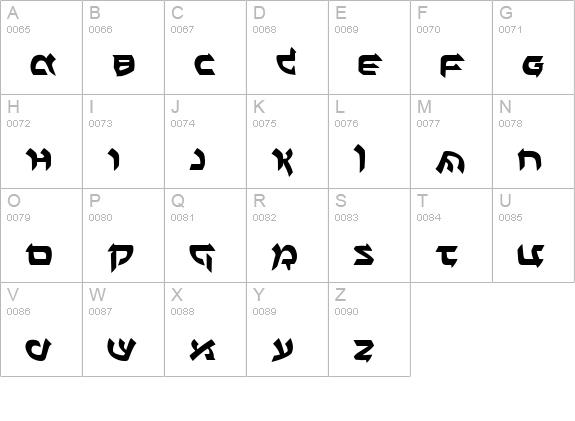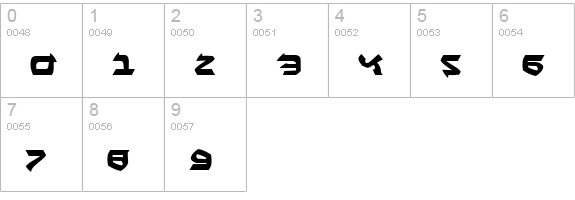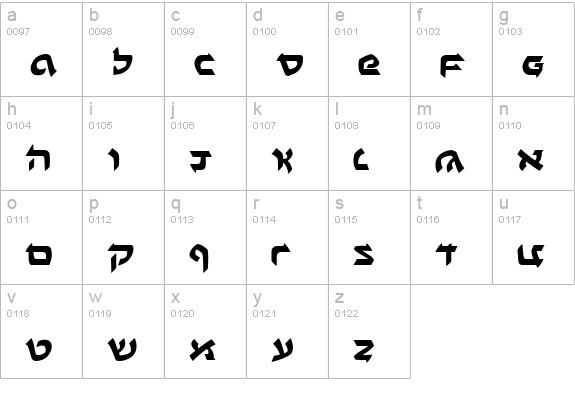
Ben-Zion Expanded is a distinctive, extended-width variant in the Ben typeface family \xE2\x80\x94 well suited to design and typography projects.
Ben-Zion Expanded font is a modern and stylish typeface that exudes elegance and sophistication. With its clean lines and bold presence, this font is perfect for making a statement in any design project. The expanded version adds an extra touch of uniqueness and flair, making it stand out from the crowd. What makes Ben-Zion Expanded font even more appealing is that it is completely free to download at FontsMarket.com. This means that you can easily access this stunning font and use it in your projects without any cost. Whether you are designing a website, creating a logo, or working on a branding project, Ben-Zion Expanded font is a versatile choice that will elevate your designs to the next level. Download it today and add a touch of sophistication to your creations.